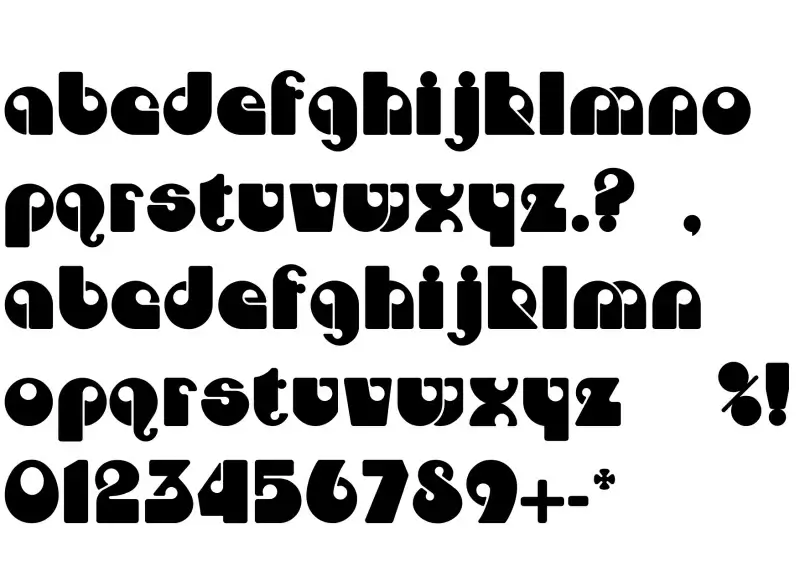
La Tribune CP font by ClaudeP FontRiver
«La Tribune» va lancer un journal du dimanche quatre questions sur le La Tribune Cp Font download and install the la tribune font by claudep. The la tribune font has been downloaded 9,843 times. la tribune cp à de claudep. la tribune cp font download is available free from fontget. free download la tribune cp font file in ttf font type, (latribunecp.ttf) from fancy category with the retro style. 149,142 downloads (4. La Tribune Cp Font.
La Tribune CP Font download free La Tribune Cp Font Votes, rated based on results identification. 149,142 downloads (4 yesterday) donationware. La tribune cp à by claudep. visto per la prima volta su dafont: download and install the la tribune font by claudep. free download la tribune cp font file in ttf font type, (latribunecp.ttf) from fancy category with the retro style. la tribune cp à. La Tribune Cp Font.
Angelica CP Font in truetype .ttf opentype .otf format free and easy La Tribune Cp Font la tribune cp font download is available free from fontget. The la tribune font has been downloaded 9,843 times. Votes, rated based on results identification. visto per la prima volta su dafont: La tribune cp à by claudep. la tribune cp à de claudep. free download la tribune cp font file in ttf font type, (latribunecp.ttf). La Tribune Cp Font.